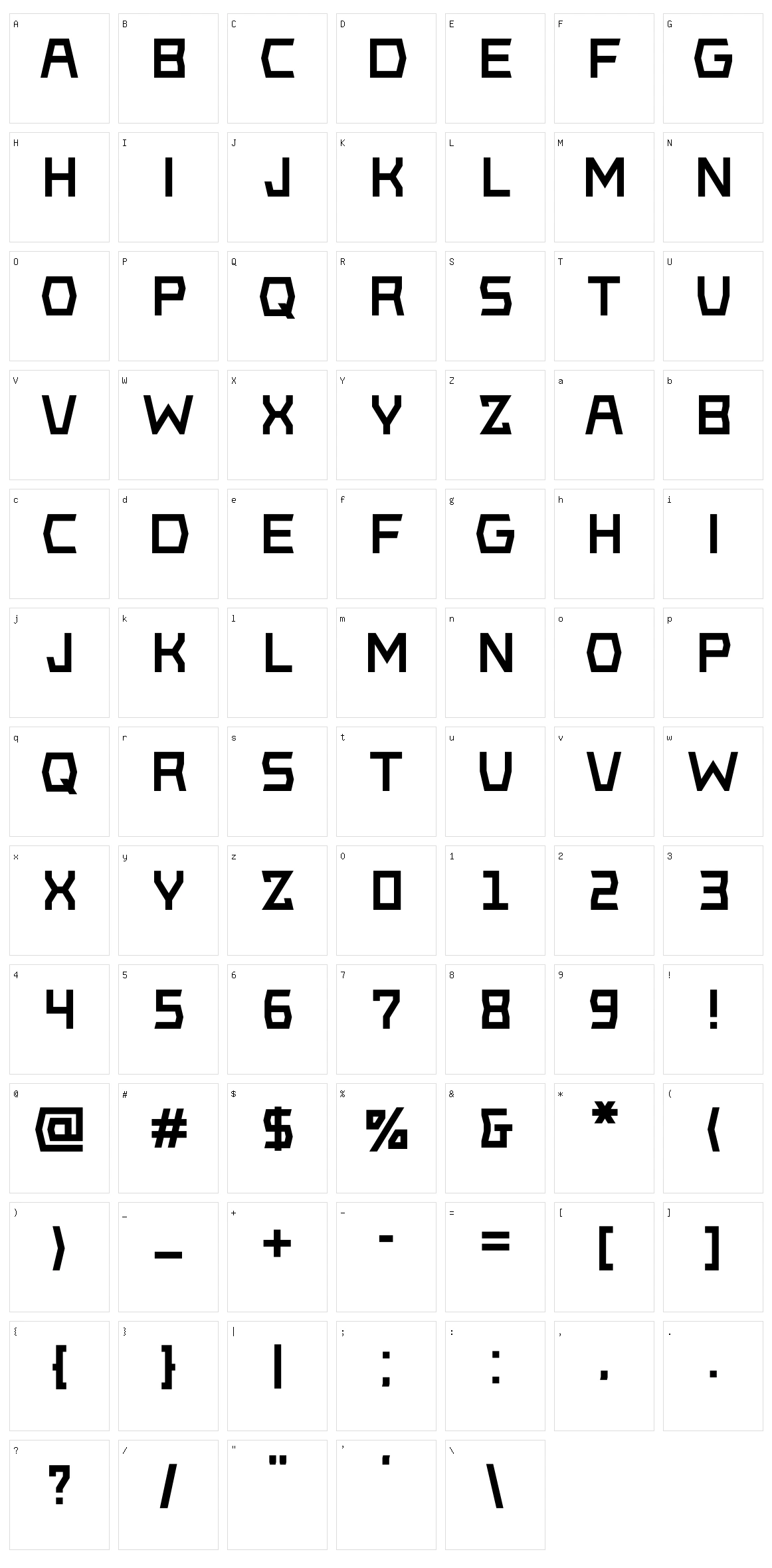
The free font Black Acute is carefully designed by Tanya Savchenko, showcasing a thoughtful balance of creativity and usability and falls under the Square font style. When you download the ZIP file, it contains only 6.53 KB of font files, making it lightweight and quick to download. Please review the license details below to understand permitted usage and distribution rights. If license information is not available, we recommend using this font for personal projects only or contacting the author directly for commercial usage permissions.